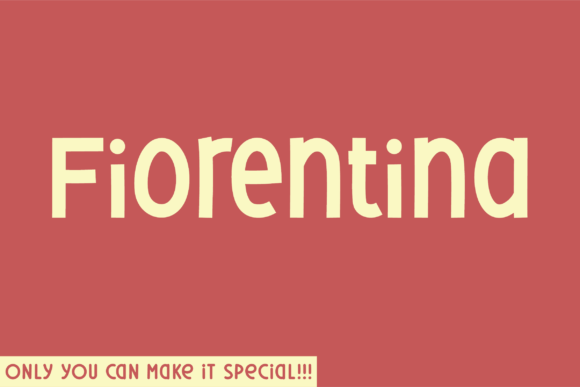
In a world brimming with boundless creativity, let your designs flourish with the captivating Fiorentina Font. This extraordinary sans serif font, crafted with meticulous precision by Hanna Bie, defies conventional norms by preserving the natural indents of each character. Immerse yourself in a realm of uniqueness, where every letter carries an imprint of individuality.
With Fiorentina Font, immerse yourself in a world of boundless creativity. From heartfelt quotes to whimsical notes, from stylish tees to captivating product designs, this font adapts seamlessly to your artistic vision. Let your imagination soar as you explore the endless possibilities that await you.
Embrace the distinctive charm of Fiorentina Font and unlock the gateway to captivating designs. Whether you're a seasoned artist or just starting your creative journey, this font offers an intuitive canvas to bring your ideas to life. Unleash your inner storyteller and craft messages that resonate with your audience.
Prepare to be mesmerized by the enchanting allure of Fiorentina Font. Its effortless flow and elegant curves add a touch of sophistication to any project. As you delve into the font's depths, you'll discover a treasure trove of hidden gems that will transform your designs into masterpieces.
Embrace the Fiorentina Font, a font that speaks to your creative soul. Its versatility knows no bounds, making it the perfect companion for a multitude of projects. Let your creativity flourish as you explore the limitless possibilities that await you. Dive into the world of Fiorentina Font and unveil the magic within.